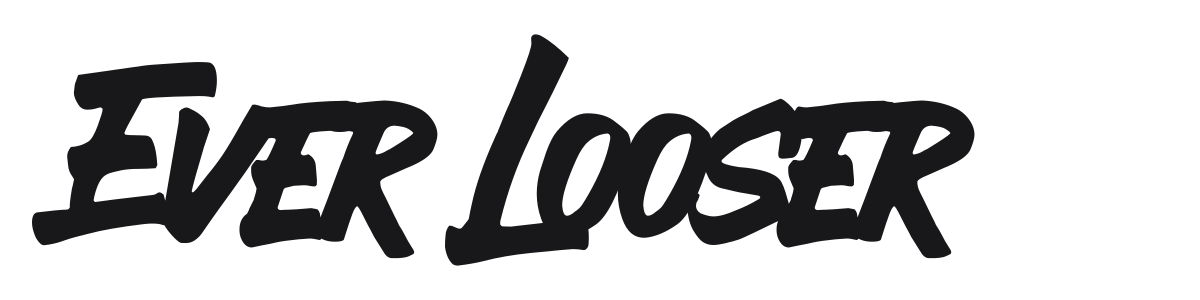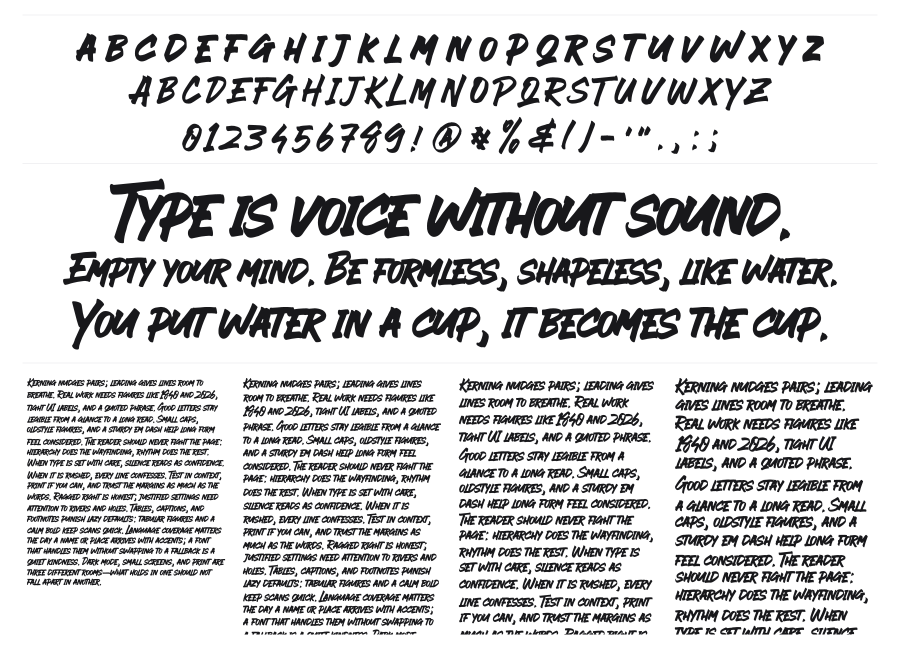
Ever Looser
Ever Looser is a wild brush script with thick, rough-edged strokes and an aggressive forward slant. The heavy ink texture and irregular character edges give it a street-art spontaneity that works best at large display sizes. It suits music, sports, and streetwear contexts where raw energy is the point.